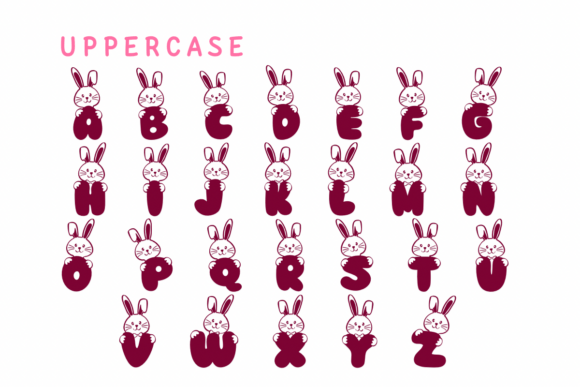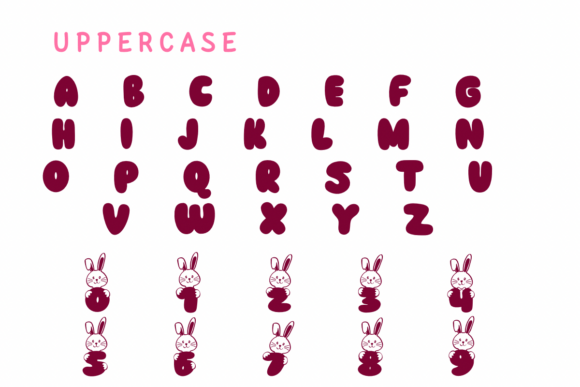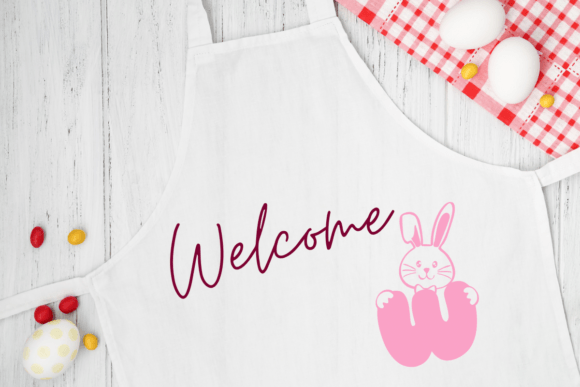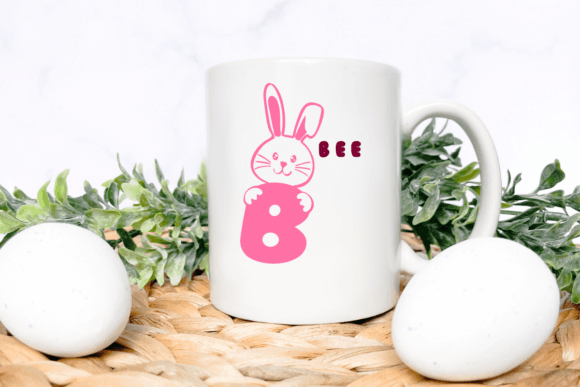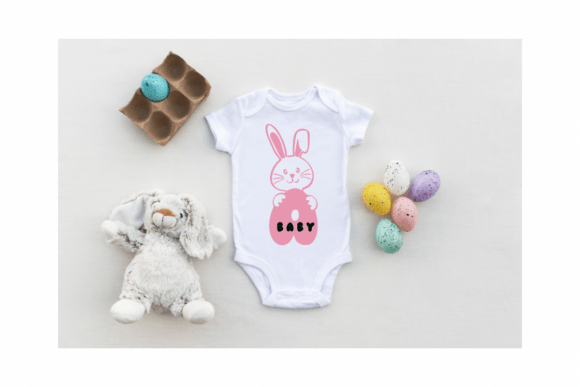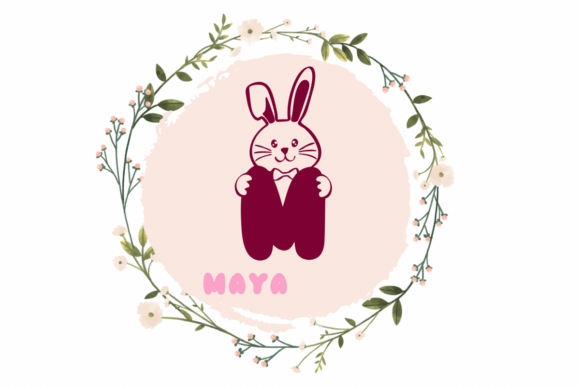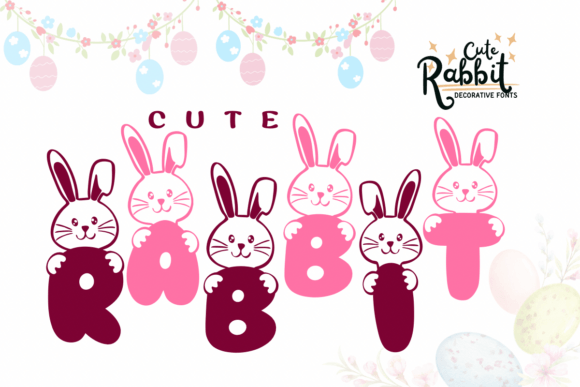
Cute Rabbit Font: The Perfect Addition to Your Design Collection
Are you a designer or crafter looking for a unique and playful font to add to your collection? Look no further than the Cute Rabbit Font! This decorative font is perfect for a variety of projects, from personal notes and diaries to greeting cards and designs. In this article, we’ll explore the features and uses of the Cute Rabbit Font, and why it’s a must-have for any creative looking to add a touch of whimsy to their work.
What is Cute Rabbit Font?
Cute Rabbit Font is a decorative font designed to bring a smile to your face. Its playful and charming design makes it perfect for a wide range of projects, from personal to commercial use. The font is carefully crafted to resemble the handwriting of a child, giving it a sweet and innocent feel that’s sure to delight.
Uses for Cute Rabbit Font
One of the best things about Cute Rabbit Font is its versatility. While it’s perfect for personal projects like taking notes, writing a diary, or making greeting cards, it’s also great for more commercial uses. Here are just a few ideas for how you can use Cute Rabbit Font:
• Banners: Add a touch of whimsy to your banners with Cute Rabbit Font. Perfect for birthday parties, baby showers, or other celebrations.
• Social Media Posts: Stand out on social media with Cute Rabbit Font. Use it to create eye-catching posts, quotes, or announcements.
• Mugs and Water Bottles: Add a personal touch to your mugs and water bottles with Cute Rabbit Font. Perfect for gifts or personal use.
• Cards and Stationery: Create beautiful cards and stationery with Cute Rabbit Font. Perfect for birthdays, holidays, or just to say hello.
• Shirts and Apparel: Take your t-shirt game to the next level with Cute Rabbit Font. Perfect for designing custom tees, hoodies, or hats.
Why Choose Cute Rabbit Font?
So why choose Cute Rabbit Font over other decorative fonts? Here are just a few reasons:
• Unique Design: Cute Rabbit Font has a unique and playful design that’s sure to stand out from the crowd.
• Easy to Read: Despite its decorative nature, Cute Rabbit Font is easy to read, making it perfect for both personal and commercial use.
• Versatile: Cute Rabbit Font can be used for a wide range of projects, from personal notes to commercial designs.
• High-Quality: Cute Rabbit Font is a high-quality font that’s designed to produce crisp, clear results.
Tips for Using Cute Rabbit Font
Here are a few tips for getting the most out of Cute Rabbit Font:
• Use it sparingly: While Cute Rabbit Font is cute and playful, it can be overwhelming if used too much. Use it sparingly to add a touch of whimsy to your designs.
• Pair it with other fonts: Cute Rabbit Font pairs well with other fonts, such as sans-serif fonts or script fonts. Experiment with different combinations to find the perfect look.
• Experiment with colors: Cute Rabbit Font looks great in a variety of colors, from bright and bold to pastel and soft. Experiment with different colors to find the perfect look for your design.
In conclusion, Cute Rabbit Font is a must-have for any designer or crafter looking to add a touch of whimsy to their work. With its unique design, versatility, and high-quality production, it’s perfect for a wide range of projects, from personal notes to commercial designs. Whether you’re creating banners, social media posts, mugs, or cards, Cute Rabbit Font is sure to bring a smile to your face and add a touch of personality to your designs.